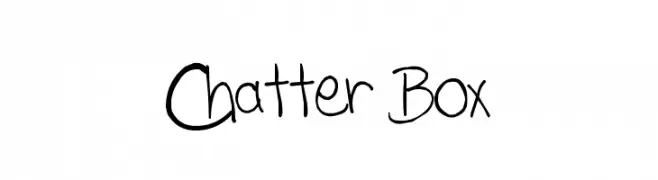
A bold, decorative font with a shadow effect and angular serifs.
A bold, shadowed blackletter style font with angular forms and a gothic aesthetic.
An ornate blackletter font with bold, angular letters and shadow effects.
A playful, handwritten font with a casual and whimsical style.
A bold, shadowed font with a three-dimensional geometric style.
A playful, hand-drawn font with characters enclosed in irregular outlines.
A bold, flowing script font with elegant, interconnected characters.
A bold, three-dimensional font with a geometric, retro style.
A bold, geometric sans-serif font with a distinctive shadow effect.
A bold, decorative font with a three-dimensional shadow effect.